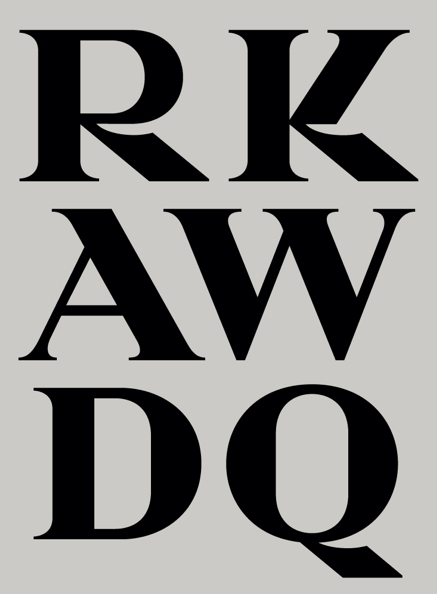
Prada Candy Font Download
Submit fonts designers register. Dec 09 2012 at 09 32. This brand has specialized into leather handbags ready to wear scent travel items shoes as well as many other luxurious accessories. The font used for prada logo is prada candy regular which is a display serif font designed by gareth hague and published by alias.
Gareth hague alias. Submit fonts designers register. Past 3 months. Prada is basically an italian luxury fashion brand founded by mario prada since 1913.
Prada candy suggested by adabdesign. Prada candy typeface by gareth hague alias. Onlinewebfonts com is internet most popular font online download website offers more than 8 000 000 desktop and web font products for you to preview and download.